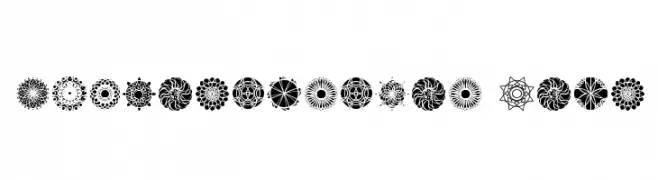
Ornamental dingbat font with geometric and decorative motifs.
Highly decorative, geometric mandala-style symbol set.
Intricate ornamental filigree glyphs with vintage flair.